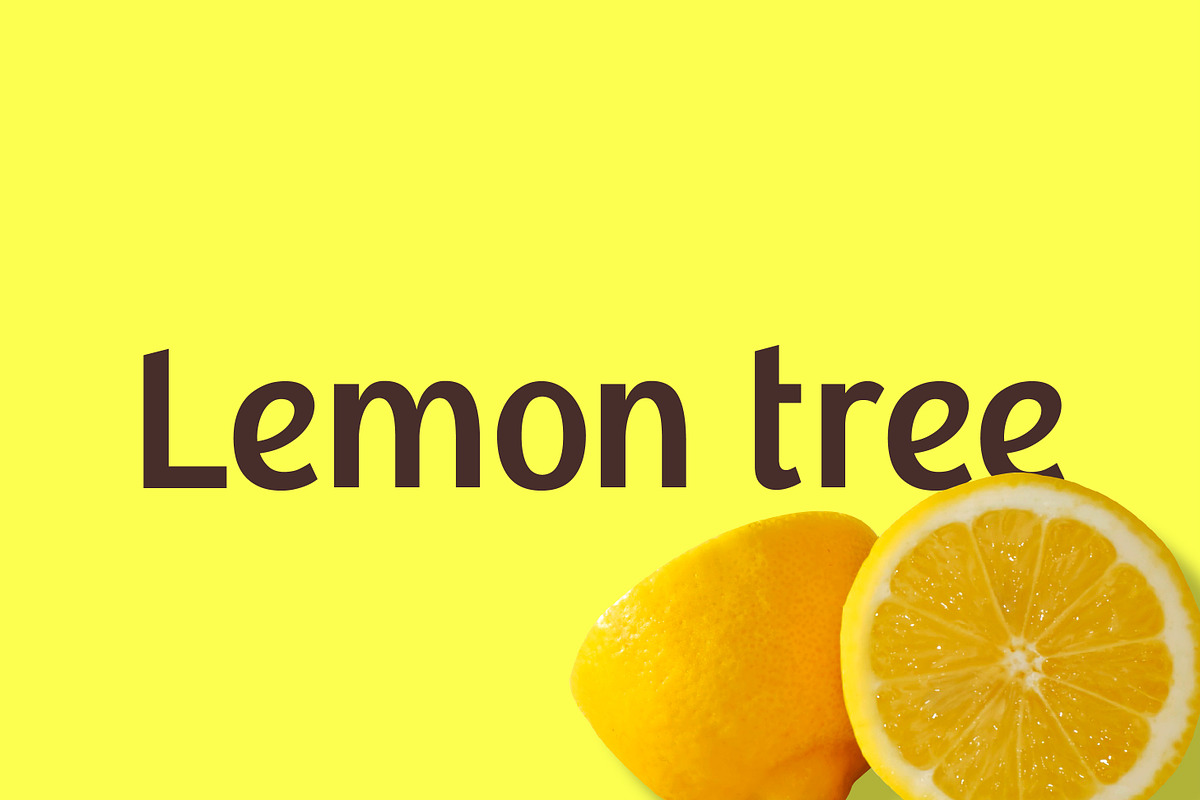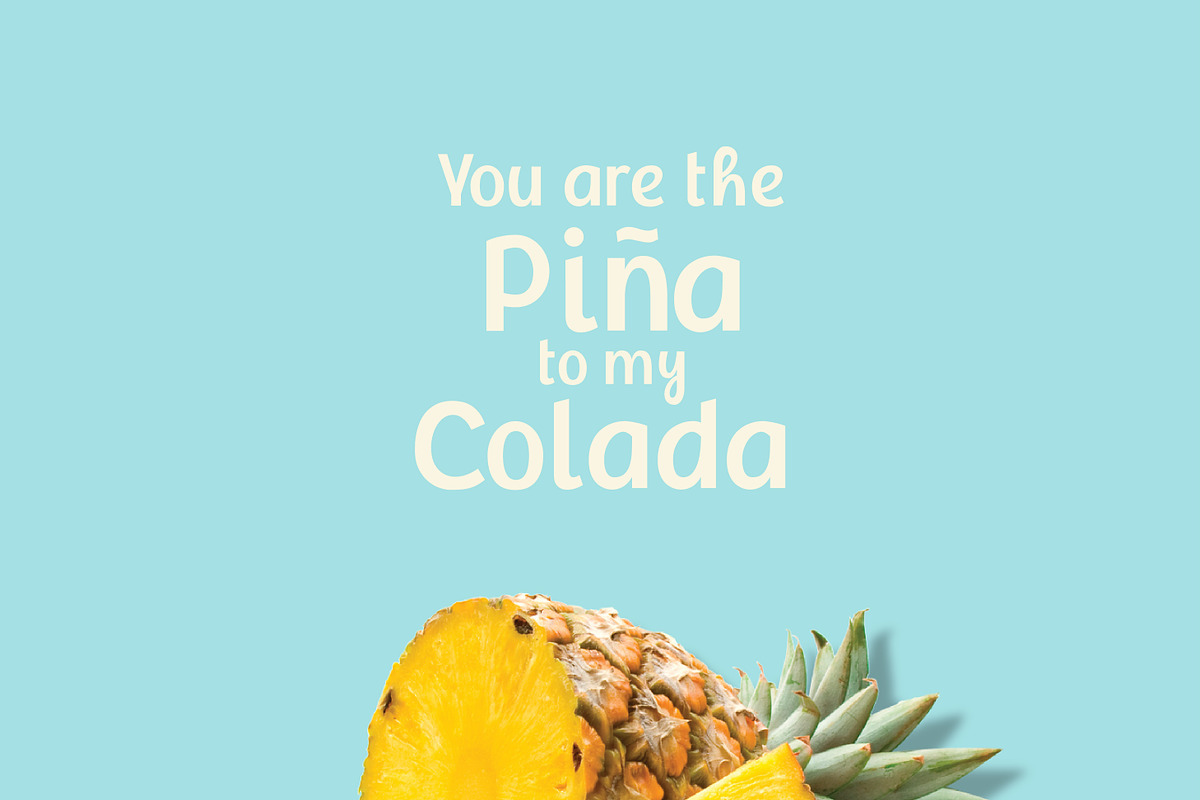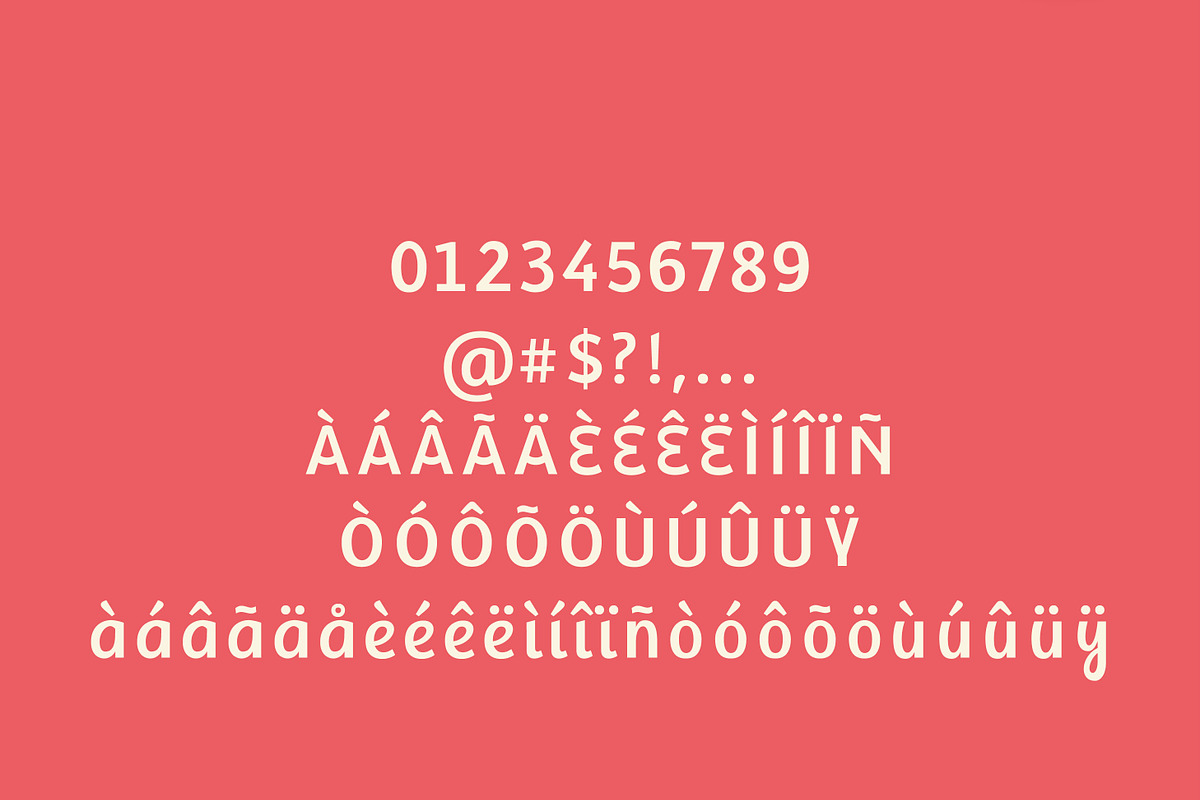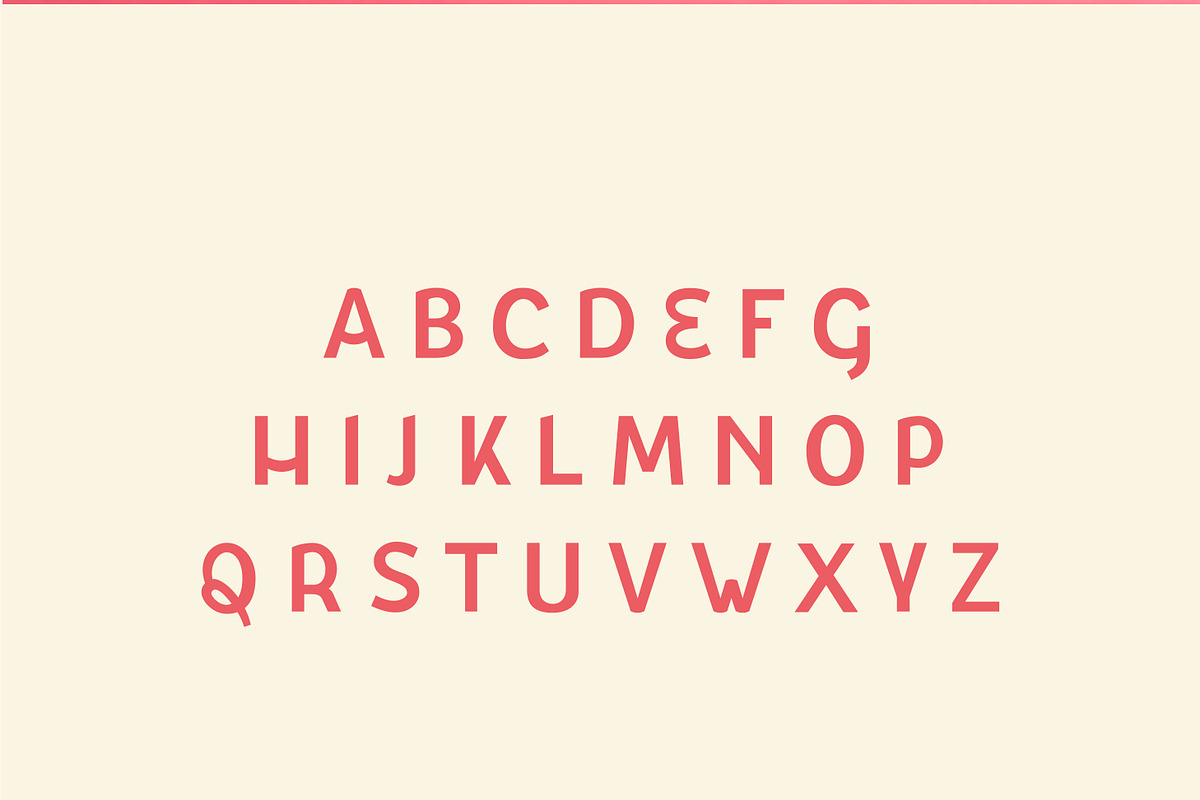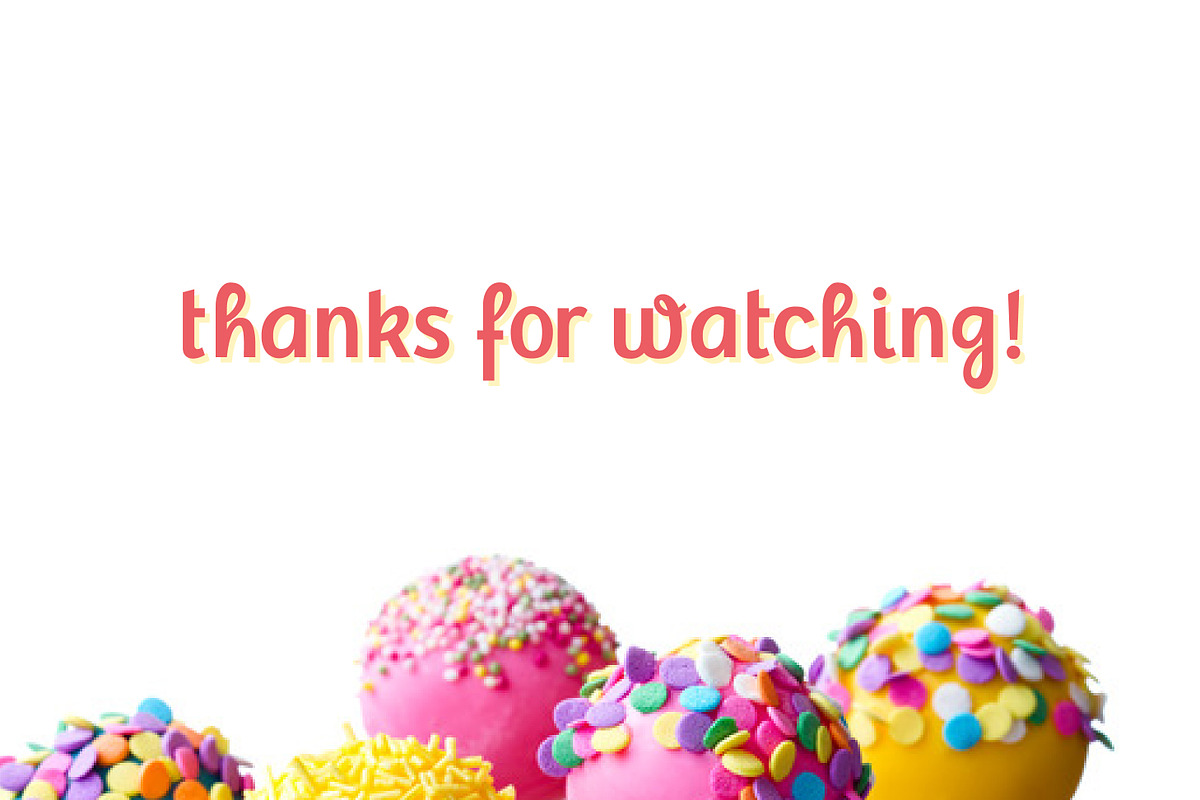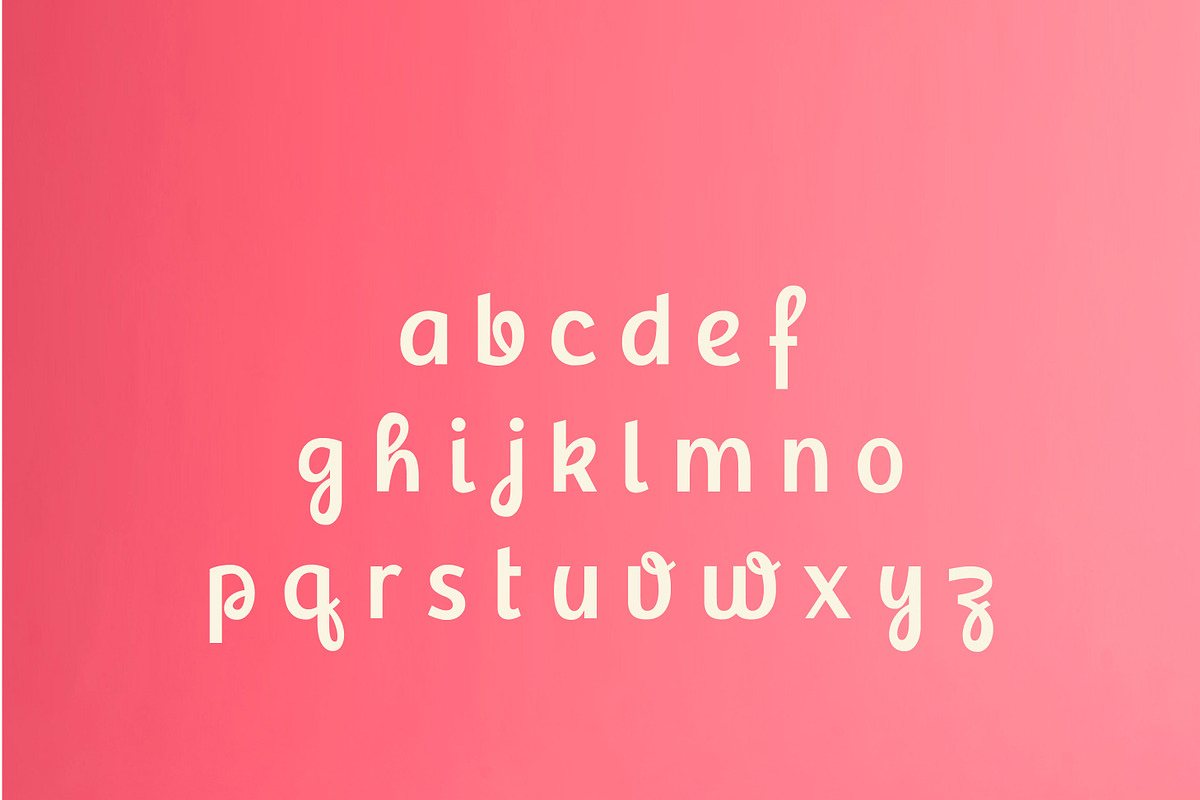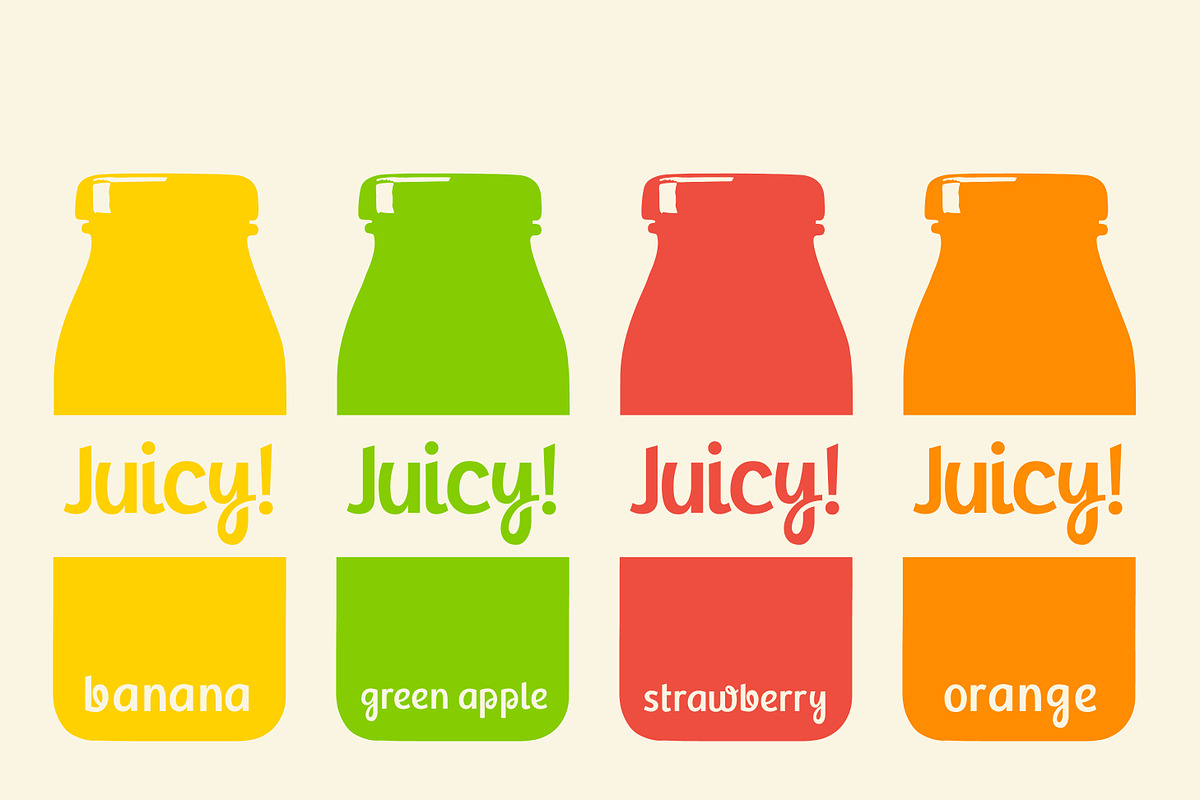
Phan - font
Phan Font by pedroazedo is a font selected for branding, posters, packaging, typography.
Phan - font by Pedro Azedo fits naturally into Branding, posters, packaging, typography.